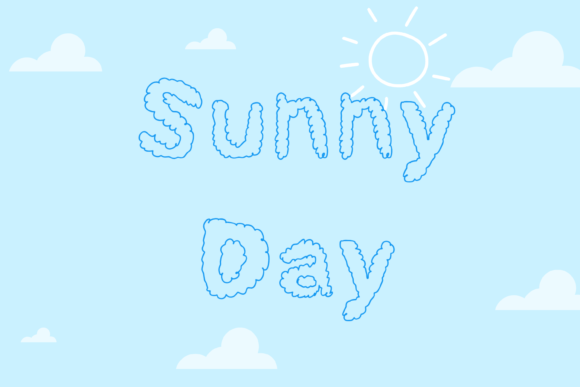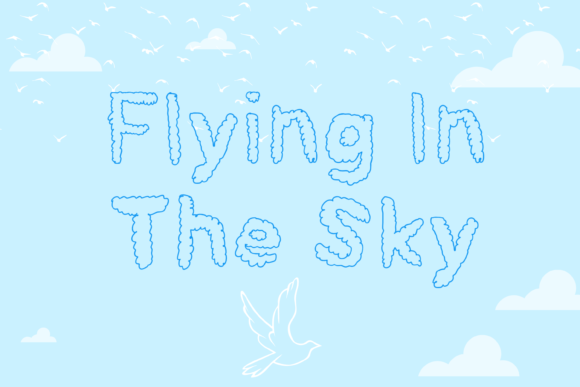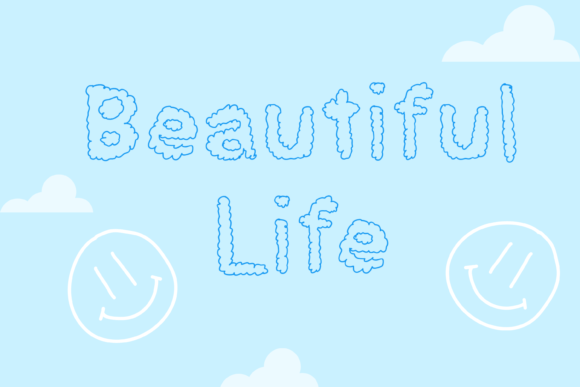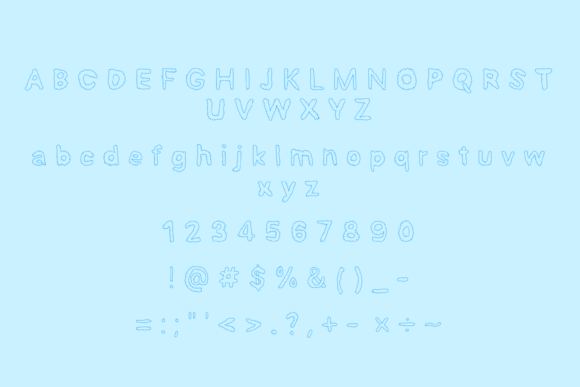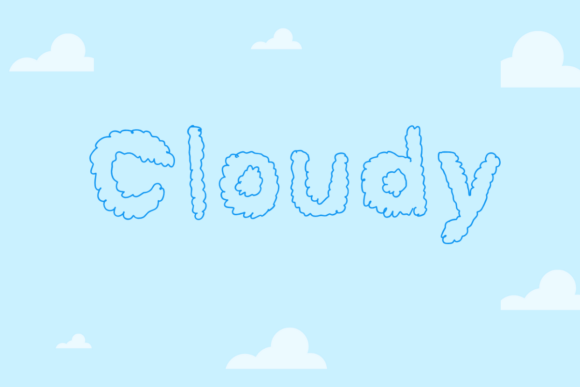
Discover the Beauty of Cloudy Font: Elevate Your Designs with a Touch of Whimsy
Are you a designer or crafter looking for a unique and captivating font to add a touch of magic to your projects? Look no further than Cloudy Font, a decorative font that is perfect for any design related to nature, outdoors, and clouds. With its soft, puffy, and whimsical texture, Cloudy Font is sure to bring a sense of wonder and enchantment to your creations.
What is Cloudy Font?
Cloudy Font is a carefully crafted decorative font that mimics the soft, white, and puffy texture of clouds. Its unique design makes it an ideal choice for projects that require a touch of whimsy and playfulness. Whether you’re working on a card, flyer, banner, book title, or social media post, Cloudy Font is the perfect addition to bring your design to life.
Perfect for Nature-Inspired Designs
Cloudy Font is specifically designed to evoke the feeling of nature and the outdoors. Its cloudy texture and soft appearance make it a natural fit for projects related to weather, skies, and landscapes. Whether you’re creating a design for a park, a hiking trail, or a outdoor festival, Cloudy Font is the perfect choice to capture the essence of the great outdoors.
The versatility of Cloudy Font is one of its most appealing features. You can use it to create a wide range of designs, from:
- Cards: Add a touch of whimsy to your greeting cards, invitations, and postcards.
- Flyers: Create eye-catching flyers for outdoor events, festivals, and nature-inspired campaigns.
- Banners: Design beautiful banners for outdoor events, weddings, and celebrations.
- Book Titles: Add a touch of magic to your book covers, especially for children’s books, poetry, and nature-inspired literature.
- Social Media: Elevate your social media posts with Cloudy Font, perfect for Instagram, Facebook, and Twitter.
Why Choose Cloudy Font?
So, why choose Cloudy Font over other decorative fonts? Here are just a few reasons:
- Unique Design: Cloudy Font has a one-of-a-kind design that will set your projects apart from the rest.
- Easy to Read: Despite its decorative nature, Cloudy Font is easy to read and understand, making it perfect for a wide range of applications.
- Customizable: You can customize Cloudy Font to fit your design needs, from adjusting the size to changing the color.
Tips for Using Cloudy Font
To get the most out of Cloudy Font, here are a few tips:
- Pair with Other Fonts: Combine Cloudy Font with other fonts to create a unique and visually appealing design.
- Experiment with Colors: Try out different colors to find the perfect match for your design.
- Play with Sizes: Adjust the size of Cloudy Font to create visual interest and hierarchy in your design.